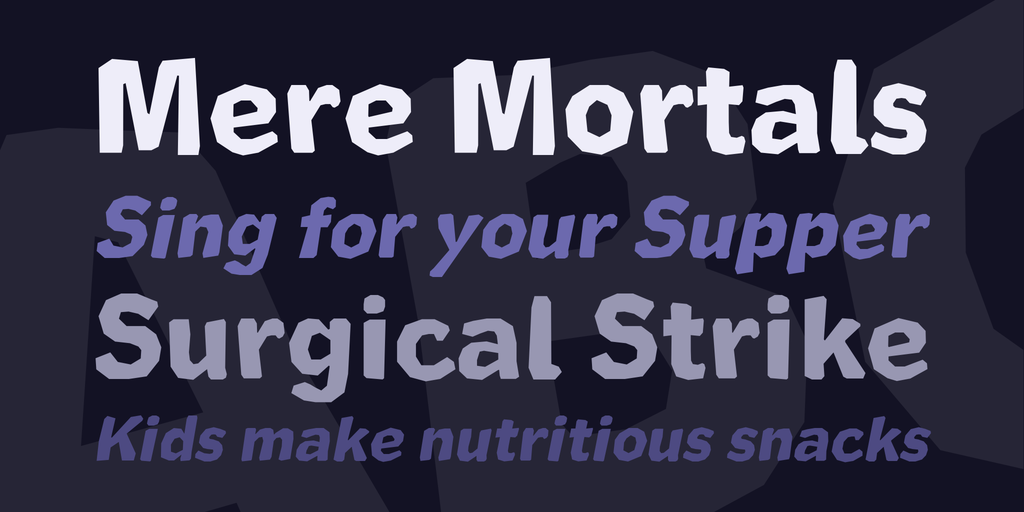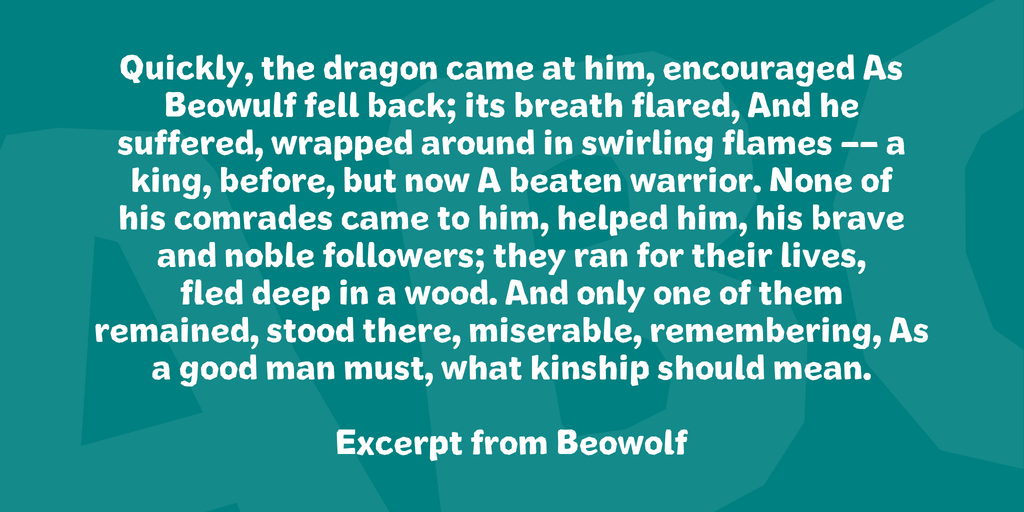
Cutrims Font: The Creative Typography of Situjuh Nazara
Typography plays a vital role in design, and fonts can make or break the aesthetic of a project. For designers and crafters, finding the perfect font can be a daunting task. However, if you’re looking for a unique and creative typography, look no further than Cutrims Font. In this article, we’ll dive into the world of Cutrims, a font created by the talented Situjuh Nazara.
Who is Situjuh Nazara?
Situjuh Nazara is a renowned font designer and creator of the popular Cutrims Font. With a passion for typography, Nazara has been experimenting with font design for years, pushing the boundaries of creativity and innovation. His work has gained recognition worldwide, and Cutrims Font is one of his most notable creations.
What is Cutrims Font?
Cutrims Font is a distinctive typeface designed by Situjuh Nazara. This font is a masterpiece of modern typography, characterized by its unique and stylish letterforms. Cutrims Font is perfect for designers and crafters looking to add a touch of elegance and sophistication to their projects.
Key Features of Cutrims Font
- Unique Letterforms: Cutrims Font boasts distinctive letterforms that set it apart from other fonts. The characters are carefully crafted to create a visually appealing and harmonious typography.
- Modern Aesthetic: Cutrims Font has a modern and sleek aesthetic, making it perfect for contemporary designs.
- High Versatility: This font is highly versatile and can be used for a wide range of projects, from branding and advertising to packaging and digital media.
- Easy to Read: Despite its unique design, Cutrims Font is easy to read, making it suitable for body text and headlines.
Uses of Cutrims Font
Cutrims Font is an excellent choice for various design projects, including:
- Branding and Logo Design: Create a lasting impression with Cutrims Font, perfect for logos, business cards, and brand identity.
- Advertising and Marketing: Use Cutrims Font to create eye-catching headlines and body copy for advertisements, brochures, and marketing materials.
- Packaging Design: Add a touch of elegance to product packaging with Cutrims Font.
- Digital Media: Cutrims Font is suitable for digital media, including websites, social media graphics, and presentations.
Tips for Using Cutrims Font
To get the most out of Cutrims Font, follow these tips:
- Pair with Neutral Fonts: Pair Cutrims Font with neutral fonts to create a harmonious contrast.
- Experiment with Colors: Try different color combinations to enhance the visual impact of Cutrims Font.
- Use for Headlines and Titles: Use Cutrims Font for headlines and titles to create a bold statement.
In conclusion, Cutrims Font is a unique and creative typography created by the talented Situjuh Nazara. With its distinctive letterforms, modern aesthetic, and high versatility, Cutrims Font is perfect for designers and crafters looking to add a touch of elegance and sophistication to their projects. Whether you’re working on branding, advertising, packaging, or digital media, Cutrims Font is an excellent choice.